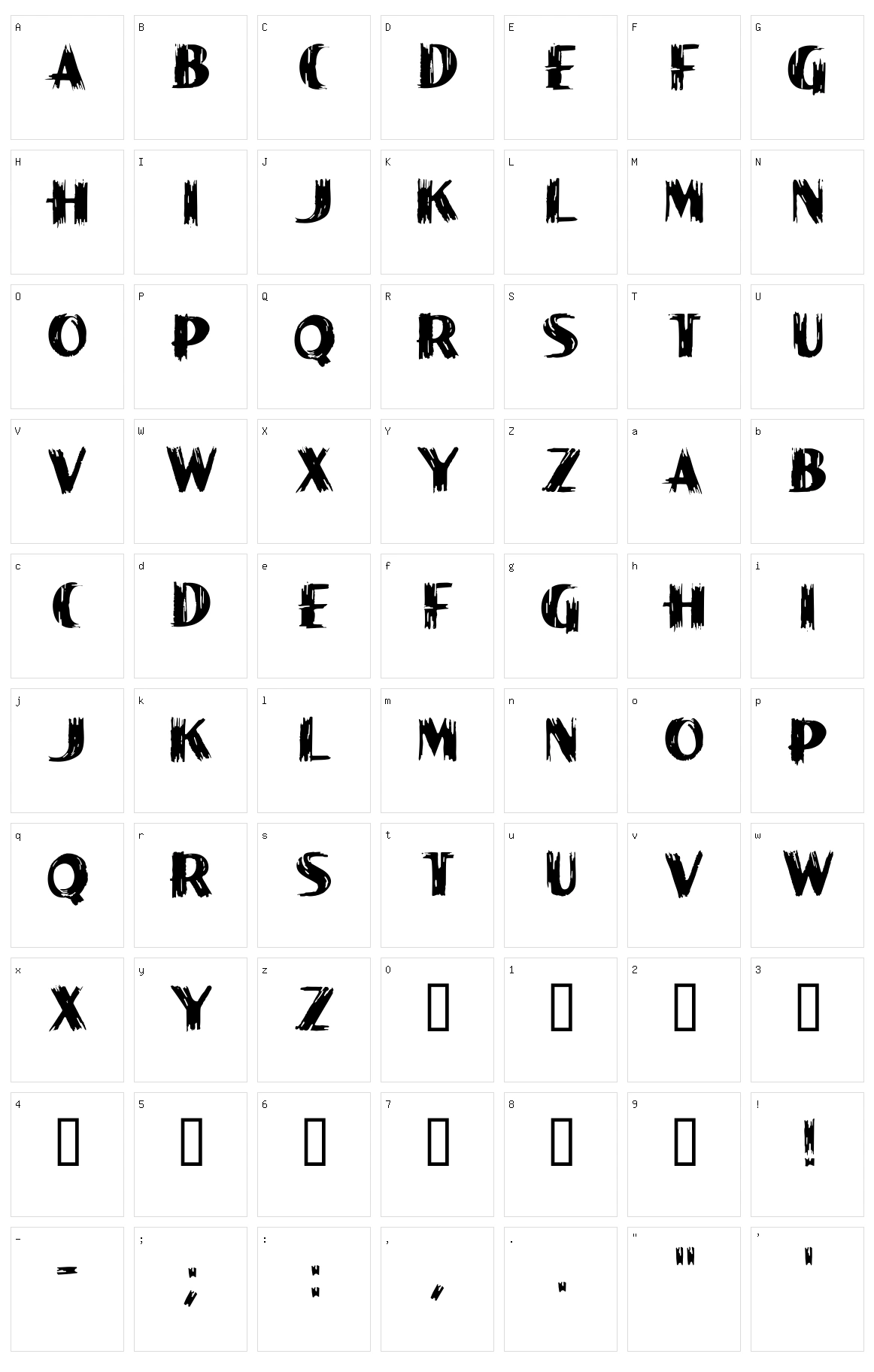
Paint Peel Initials
¥ Paint Peel Initials is a novelty display face that should be used sparingly with only one or two words. Paint Peel, as the name implies, looks like paint thatÕs peeling off a wood surface in small strips. The upper and lowercase letters are the same and there are no numbers. Use this font in: ads, newsletters, display headlines, etc. If you can make use of this font, please register for it by sending me your return address on a postcard or letter (See below).